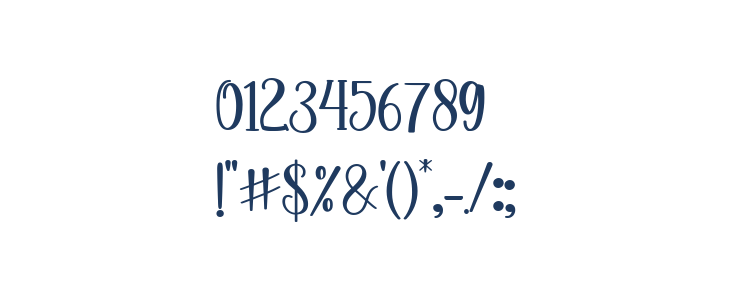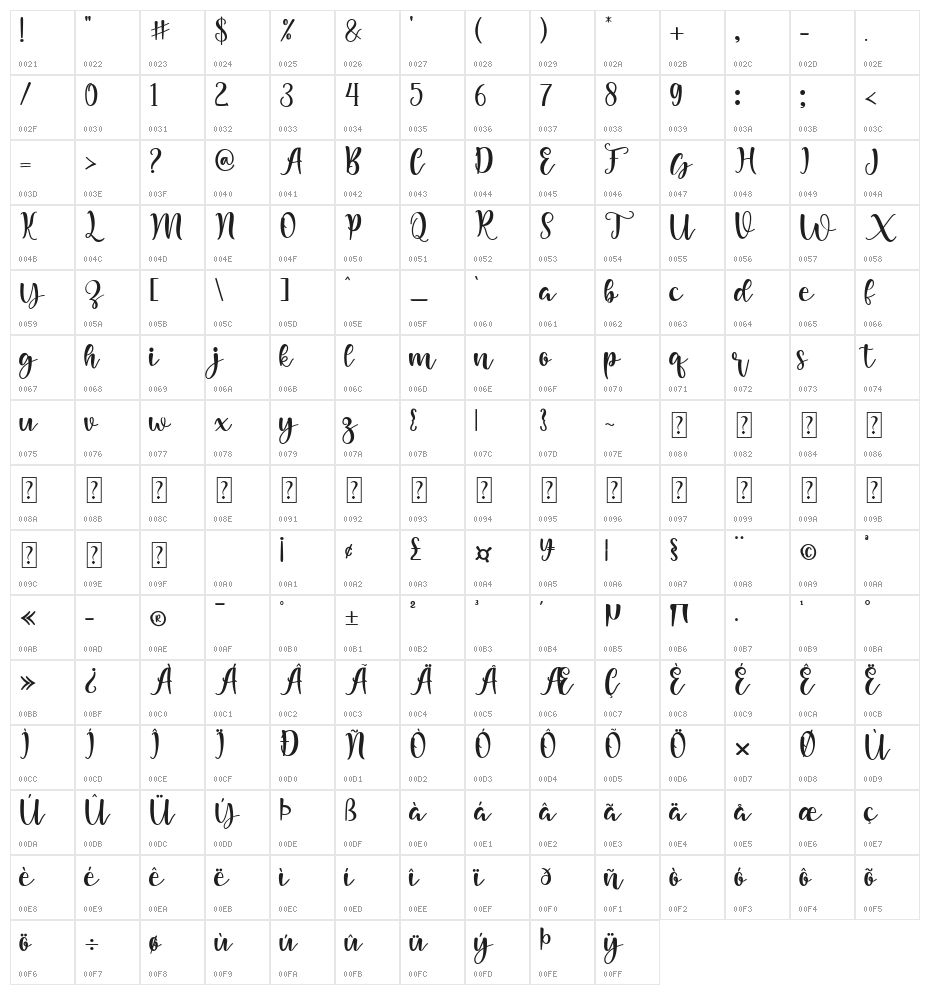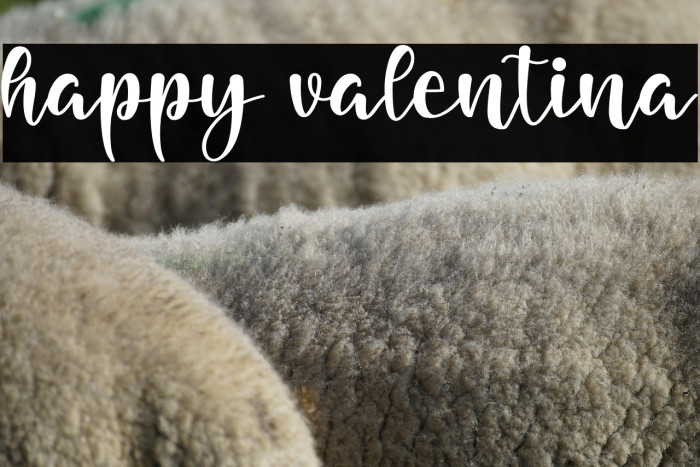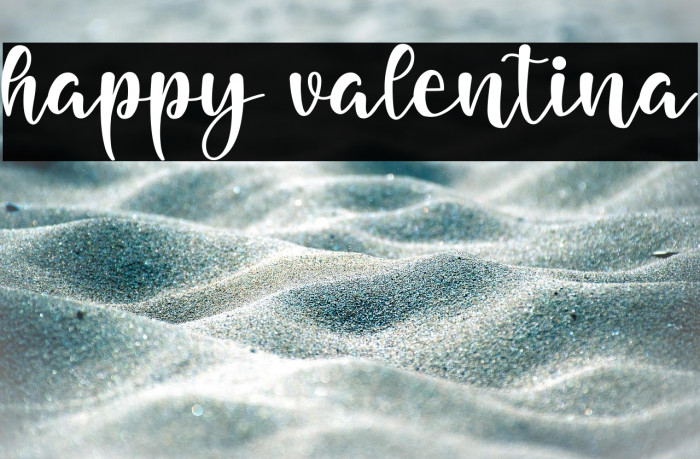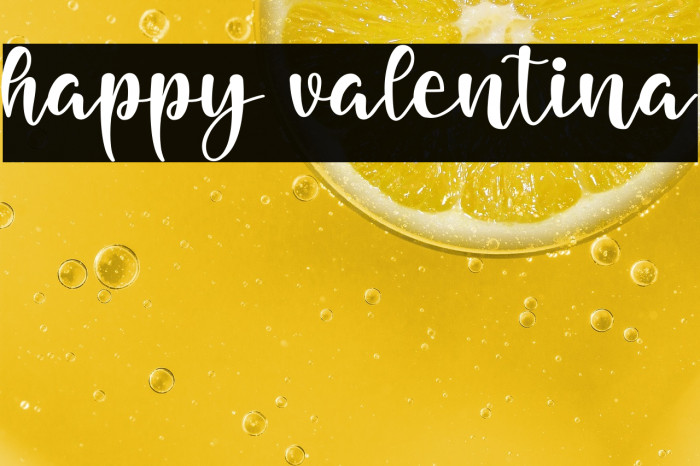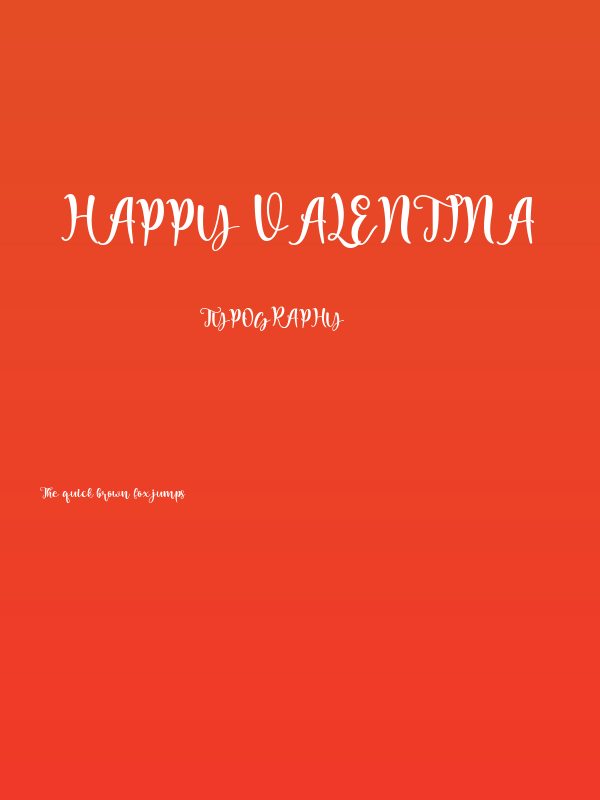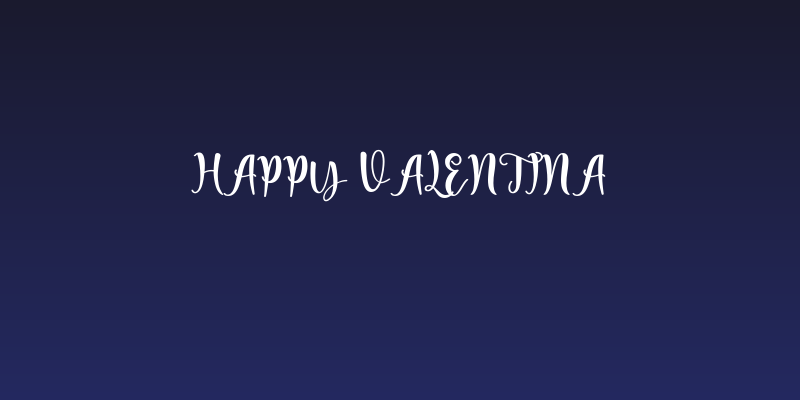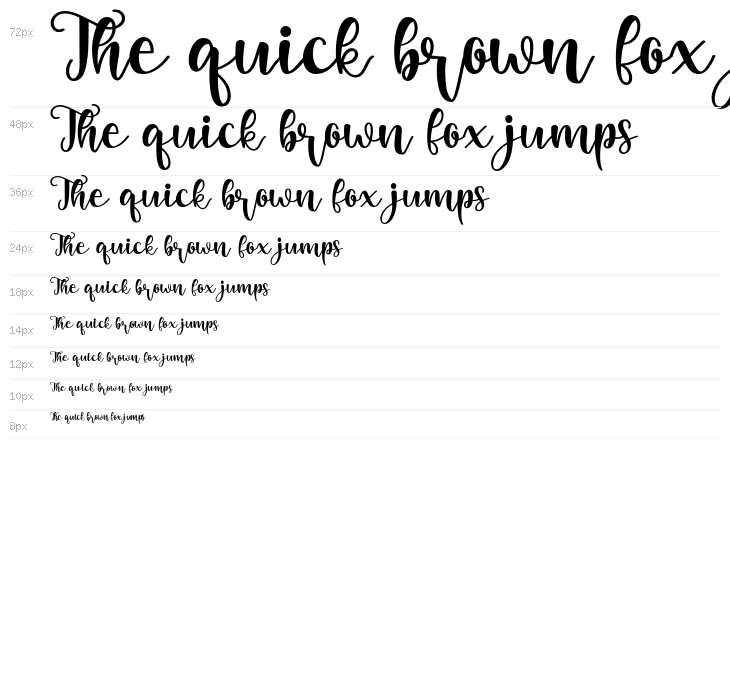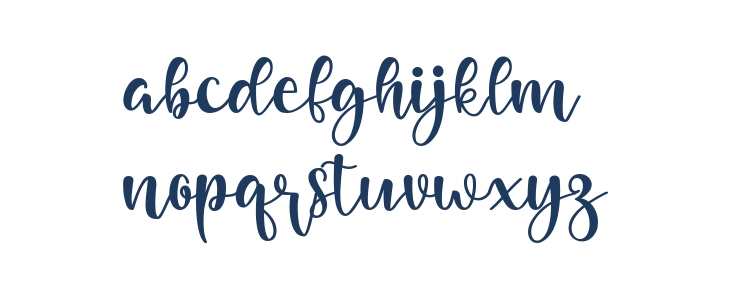
happy valentina Font
happy valentina Description
This font features an elegant and playful script style, characterized by its flowing, cursive letterforms. The uppercase letters are adorned with decorative swashes, adding a whimsical touch to the overall design. The lowercase letters maintain a consistent flow, with some characters featuring loops and flourishes that enhance the font's charm. The numerals are designed with a similar flair, ensuring cohesion throughout. Special characters are included, maintaining the font's playful and decorative nature. This font is ideal for projects that require a touch of elegance and creativity.